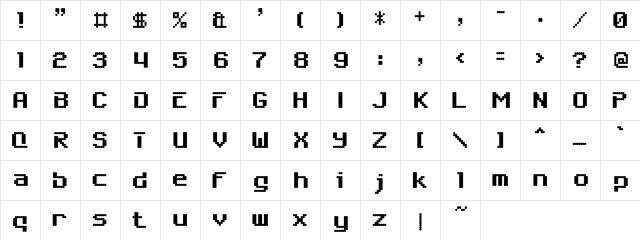
6809chargen Regular
Design Context for 6809chargen Typeface
6809chargen takes a measured approach to typography — its balanced proportions and neutral character make it a reliable workhorse for both digital and print work.